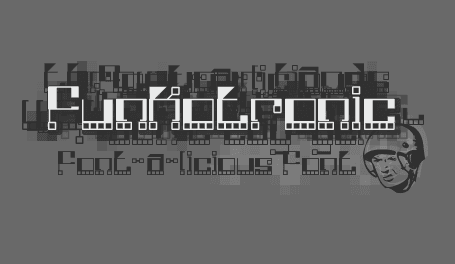
Funkotronic is a space-age font that has special powers. You use this font, and all of your futuristic designs magically become spectacular. It has one weakness, though. Being used at small point sizes. Its powers become useless. So use it big, and its powers are even bigger!